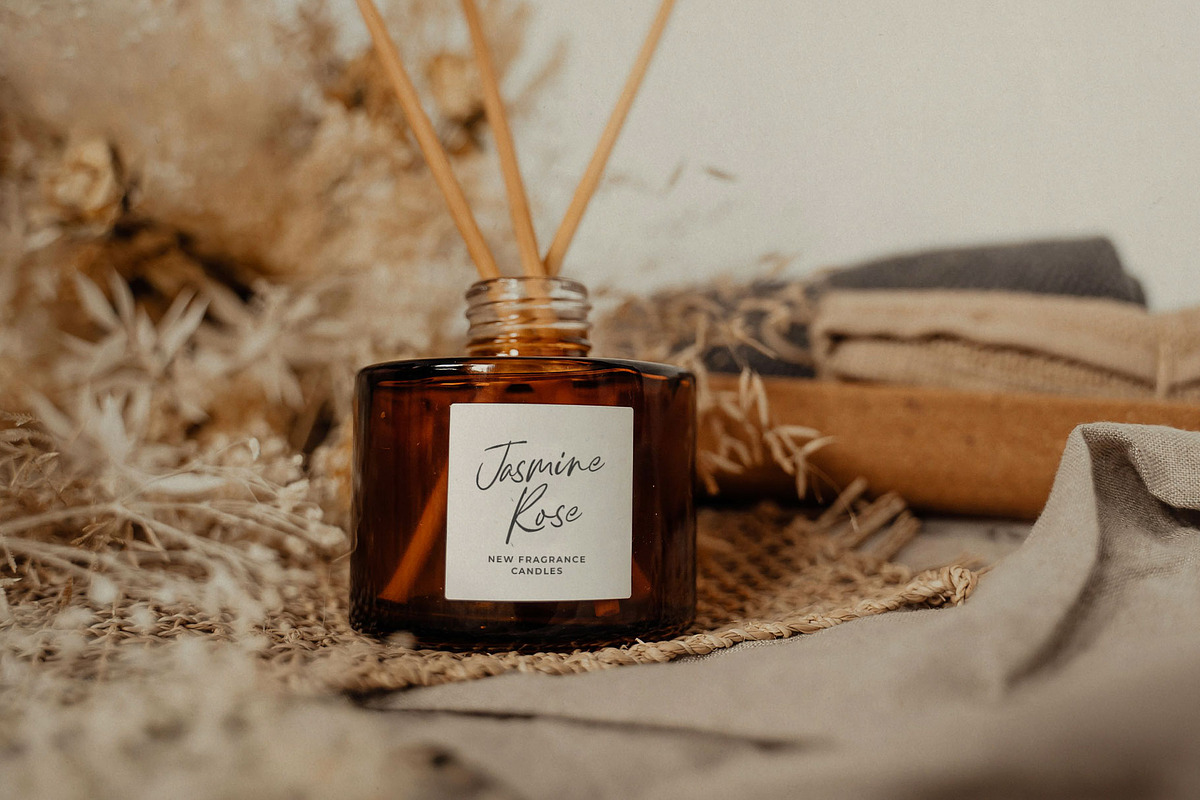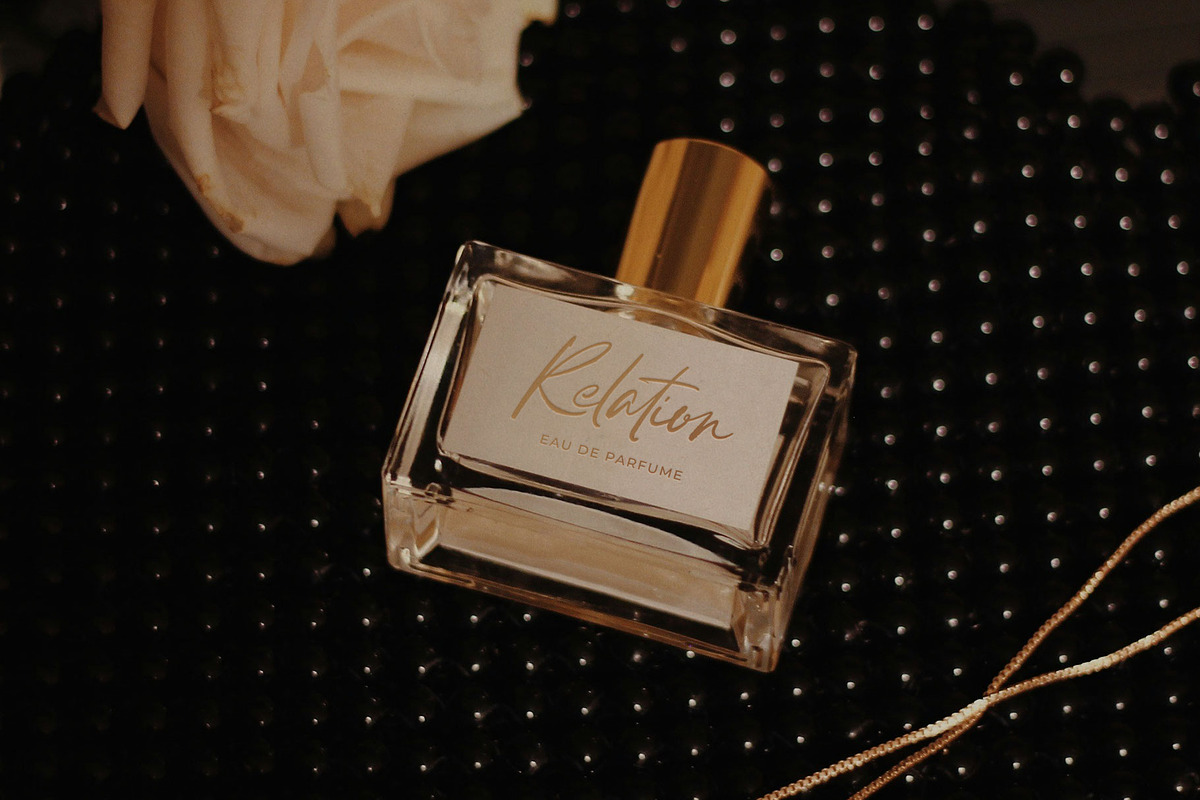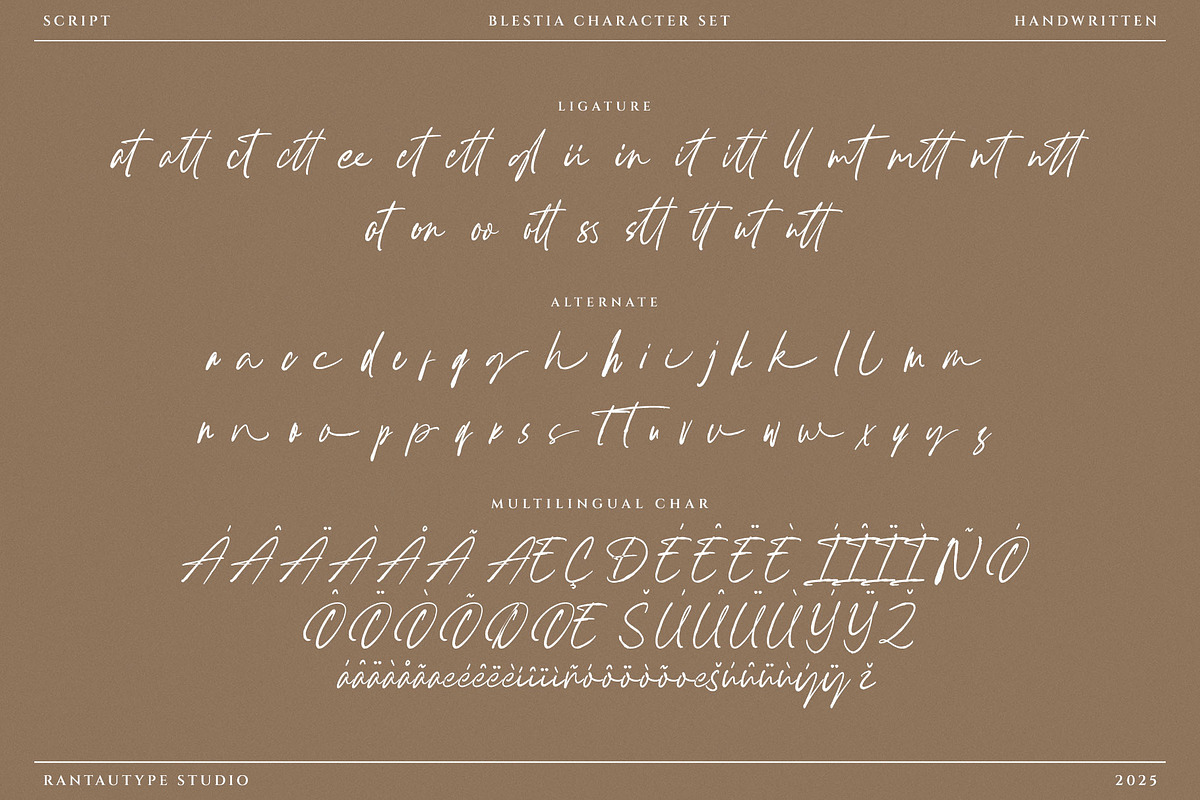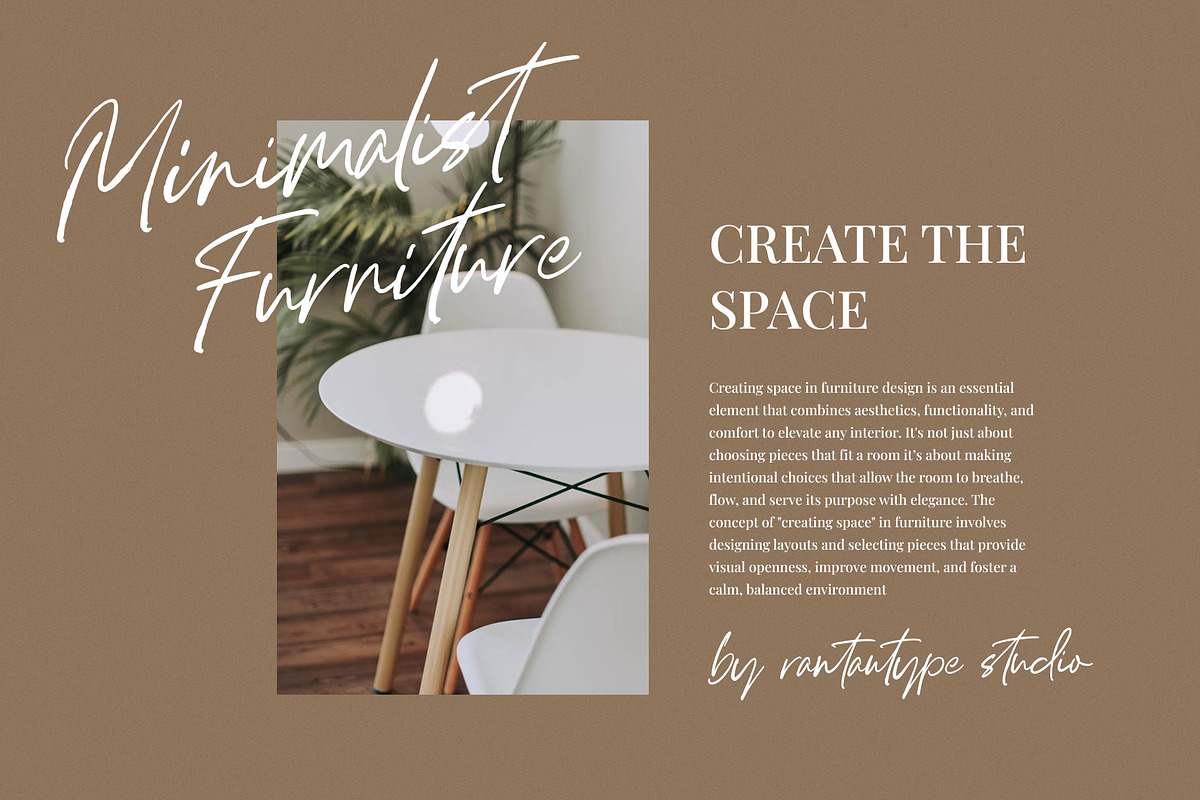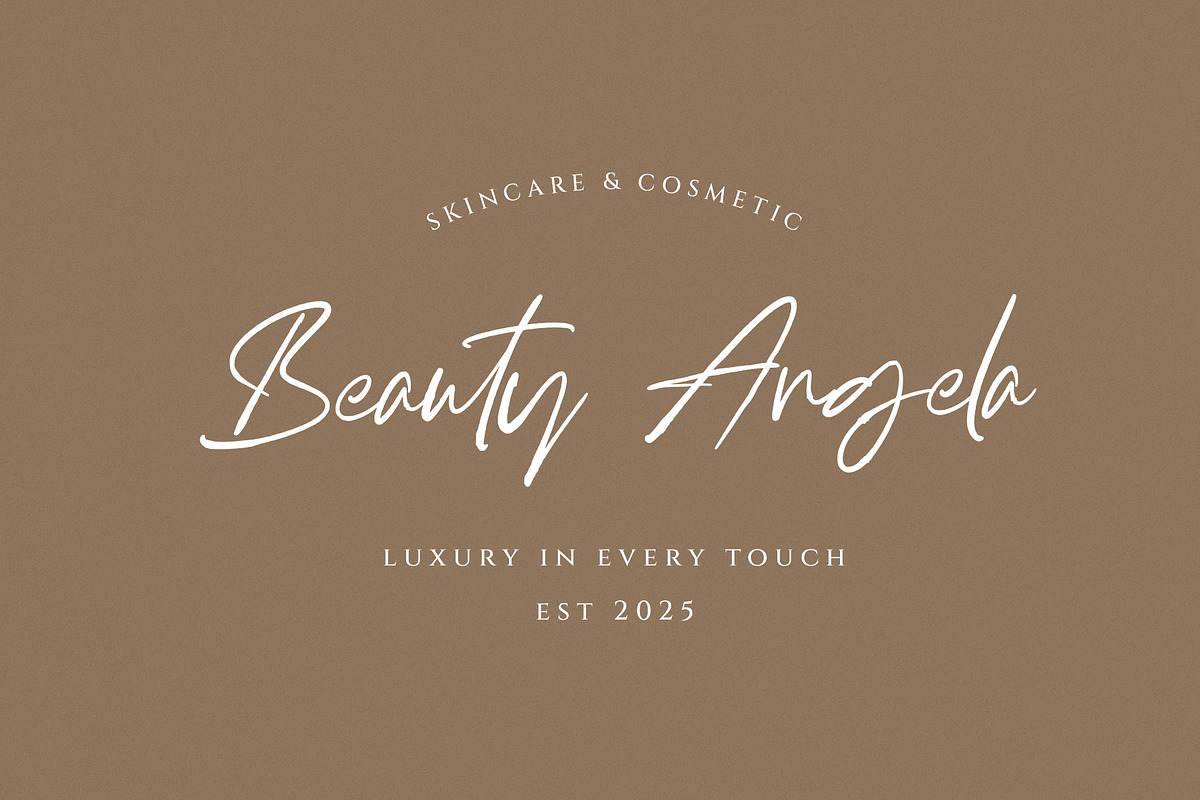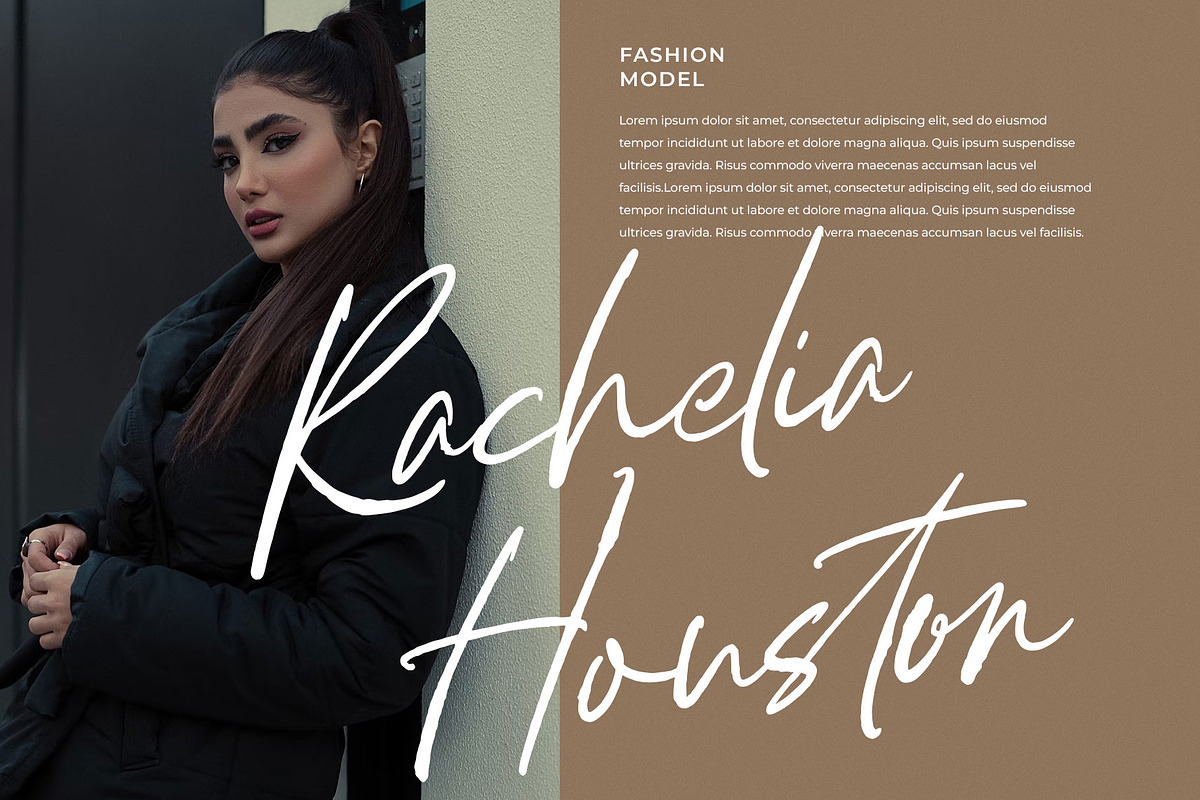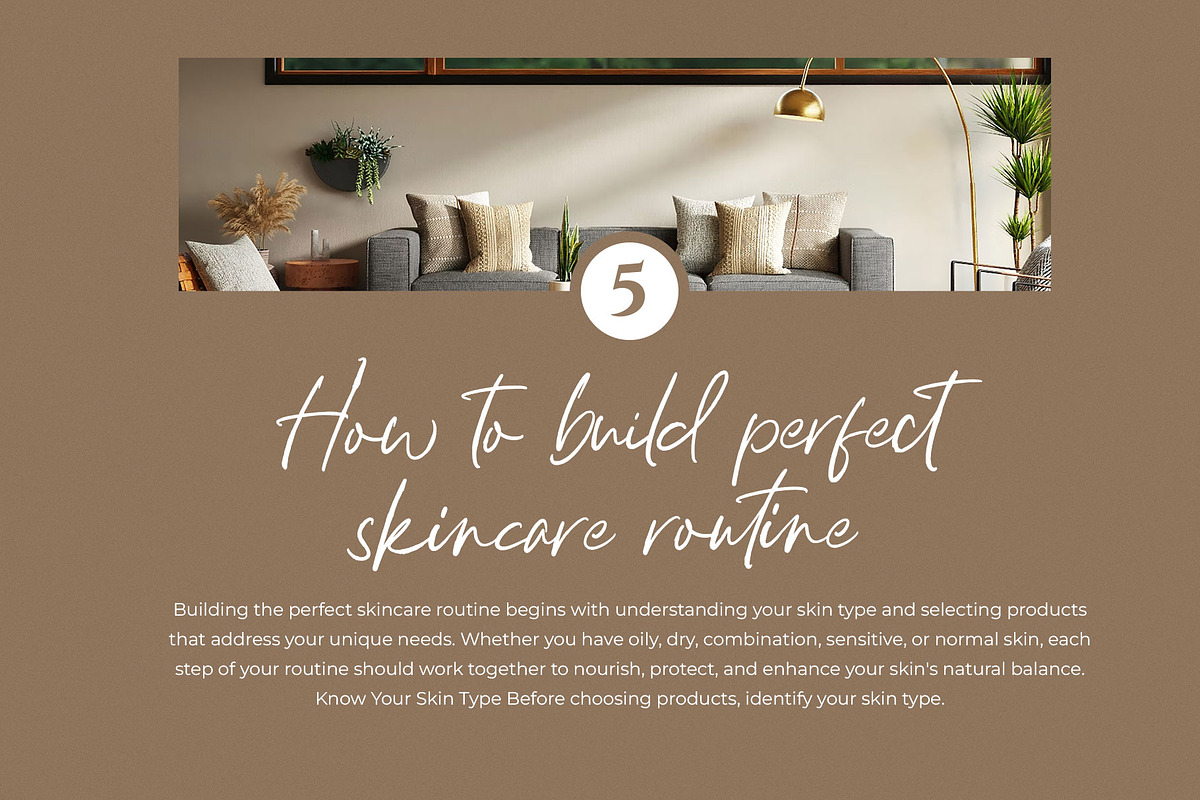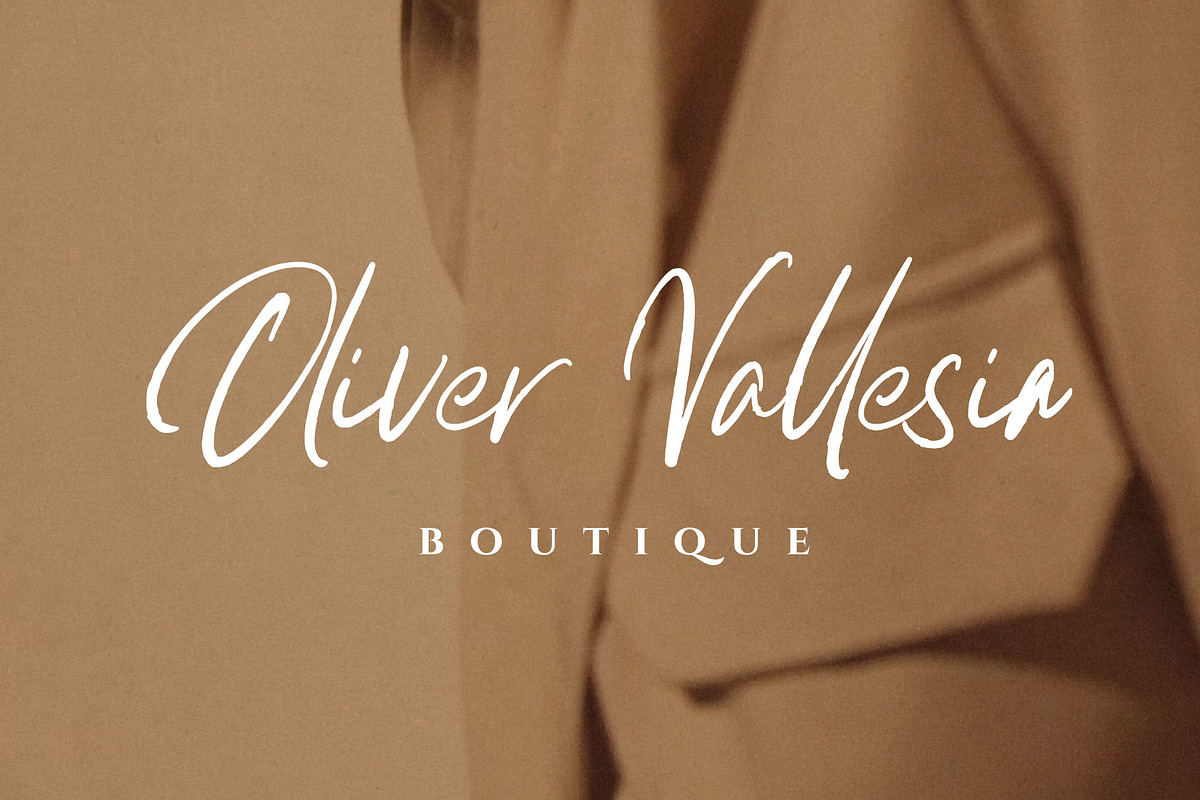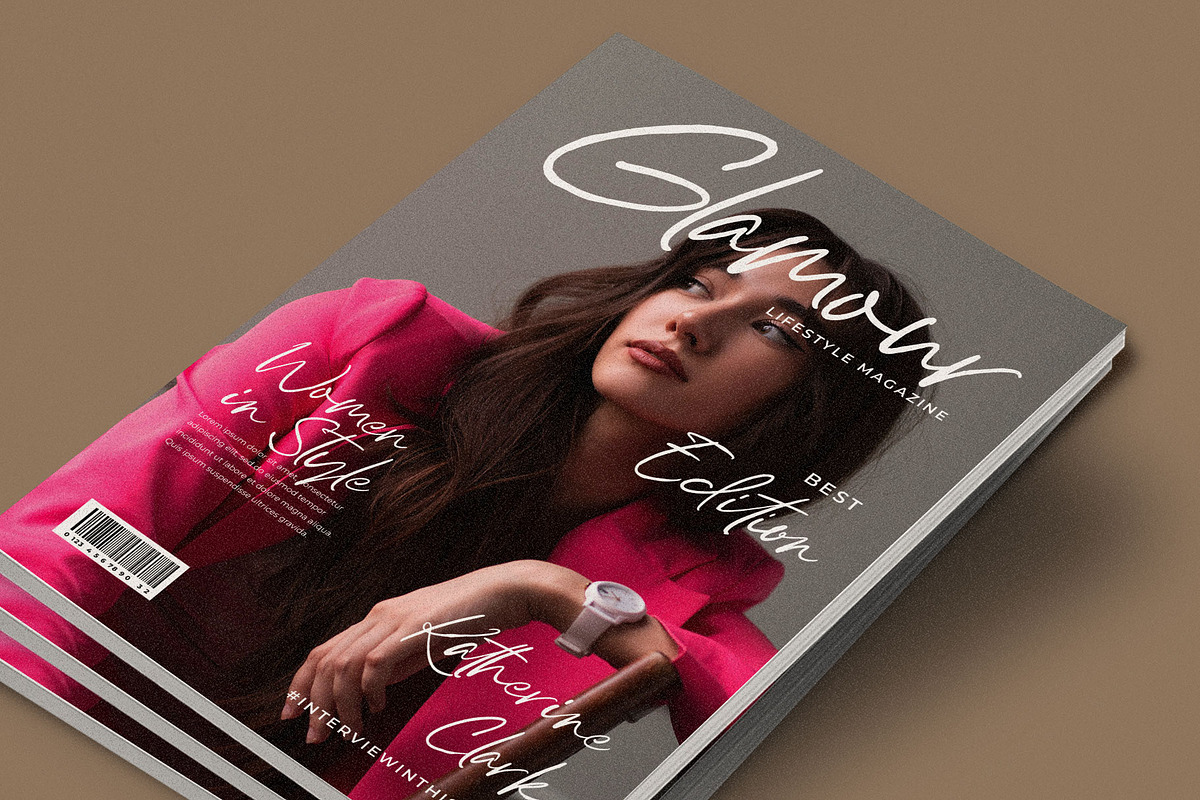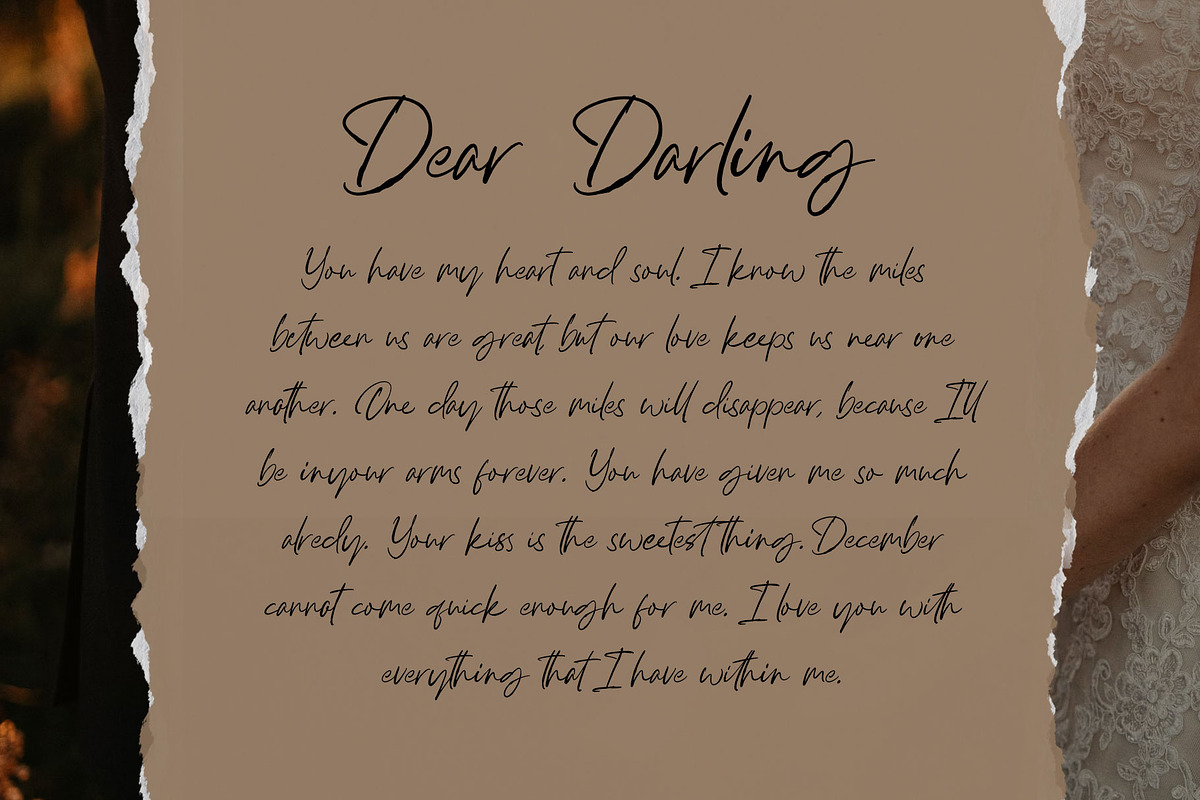
Blestiya Handwritten Script Font
Blestiya is handwritten script font with texture detail character. Blestiya is a perfectly choice for any creative endeavor, creating, modern, lifestyle design such as logotype, title, cover, branding, invitations, wedding designs, display and magazine, social media posts, advertisements, printed quotes, product packaging, corporate brand, product designs, labels, photography, watermarks, special events and any other project with modern touch.
- Alternate and ligature
Fonts include Multilingual Character for: Afrikaans, Albanian, Asu, Basque, Bemba, Bena, Breton, Chiga, Cornish, Dutch, English, Estonian, Filipino, Finnish, Friulian, Galician, Gusii, Indonesian, Irish, Italian, Kabuverdianu, Kalenjin, Kinyarwanda, Luo, Luxembourgish, Luyia, Machame, North, Oromo, Portuguese, Quechua, Romansh, Rombo, Rundi, Rwa, Samburu, Sango, Sangu, Scottish, Gaelic, Sena, Shambala, Shona, Soga, Somali, Spanish, Swahili, Swedish, Swiss, German.